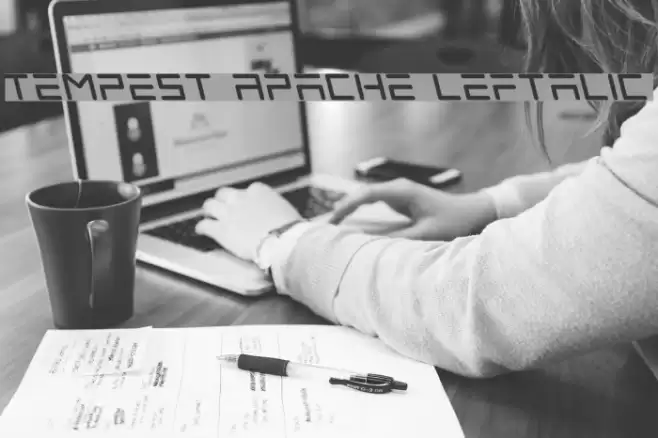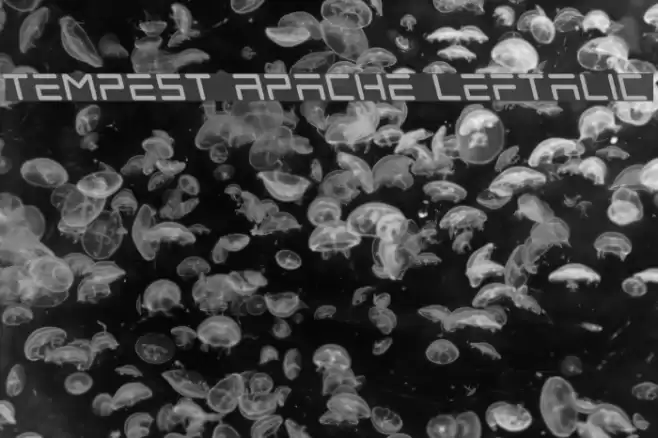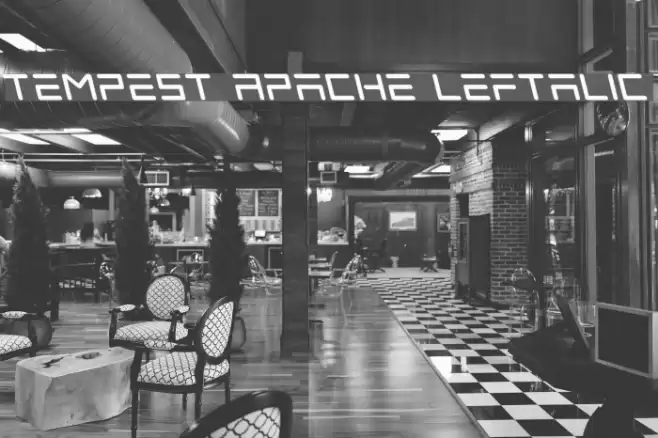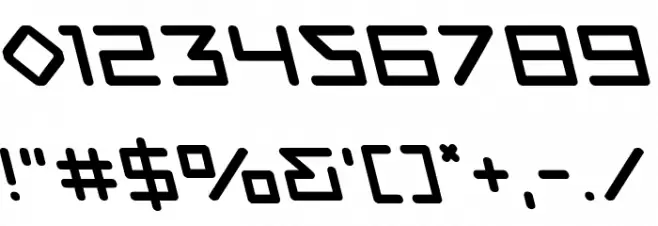
Tempest Apache Leftalic Font
Tempest Apache Leftalic Description
This font features a futuristic and angular design, characterized by its geometric shapes and sharp edges. The characters are constructed with a consistent stroke width, giving it a uniform appearance. The uppercase letters are bold and commanding, while the lowercase letters maintain the same angular style, offering a cohesive look across the alphabet. The numerals and special characters follow the same design principles, ensuring a harmonious visual experience. This font's unique style makes it suitable for projects that require a modern and edgy aesthetic.
A futuristic, angular font with geometric shapes and consistent stroke width from Uncategorized fonts.
- Proposed Projects: Ideal for sci-fi themed designs, technology branding, video game interfaces, and modern posters.